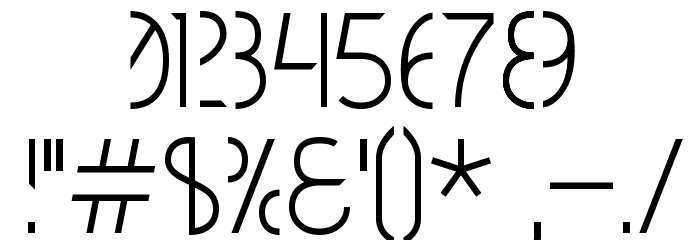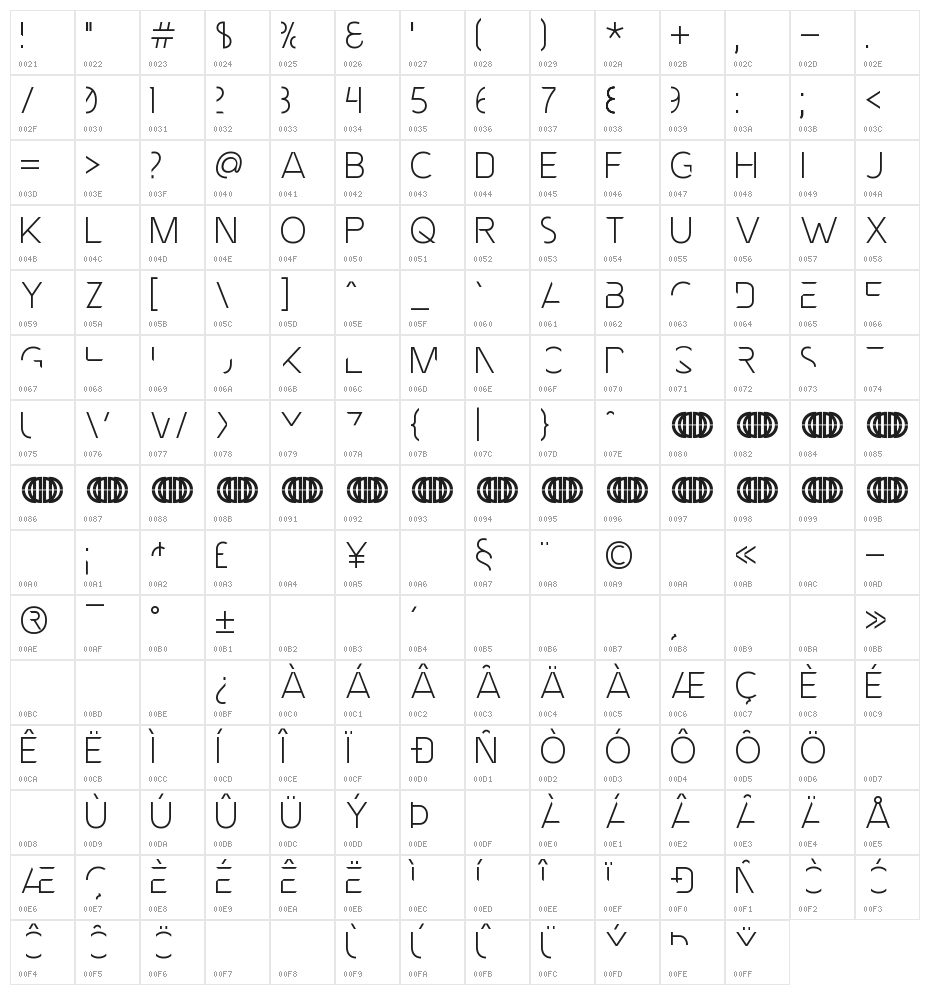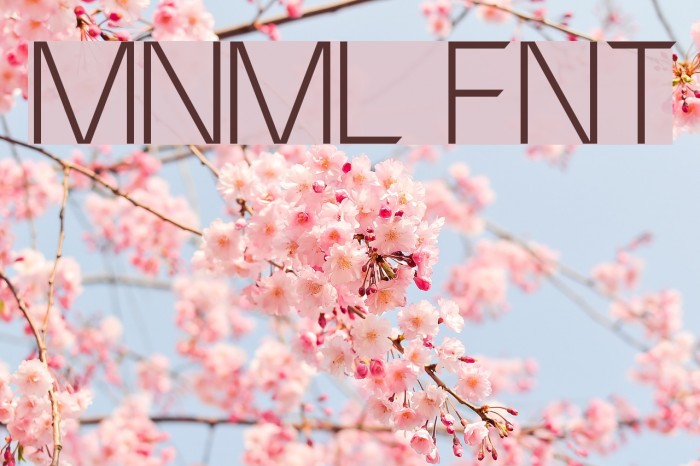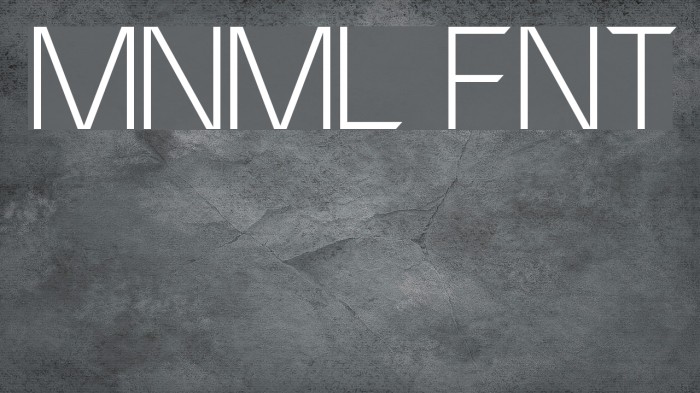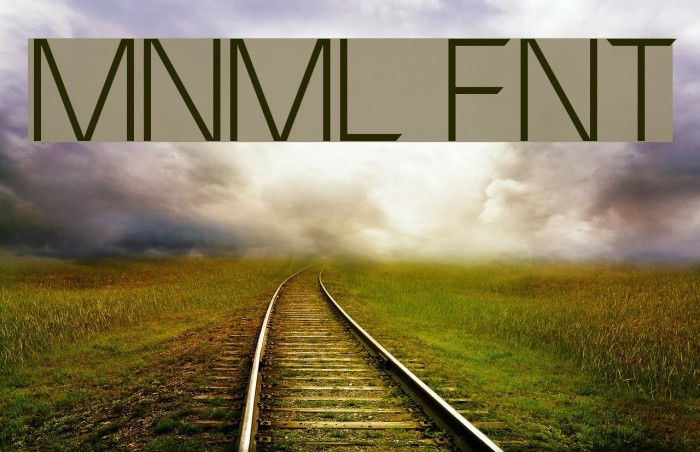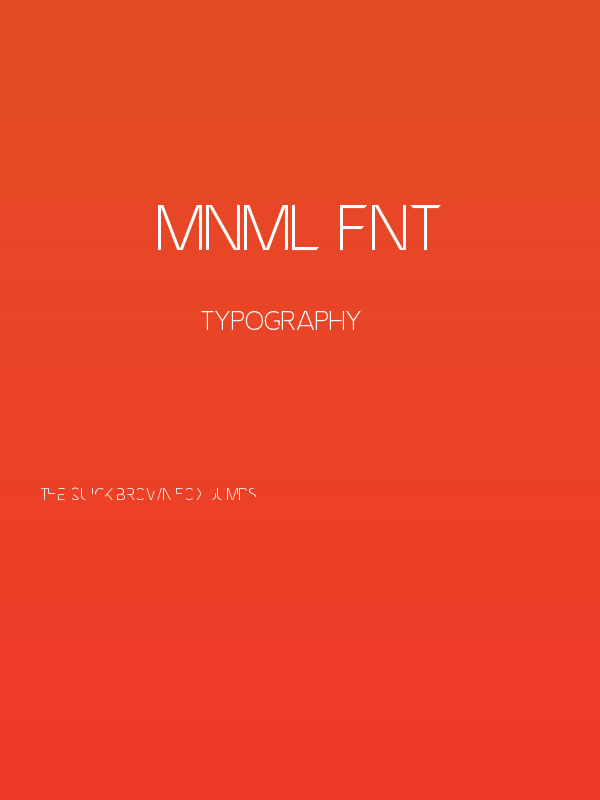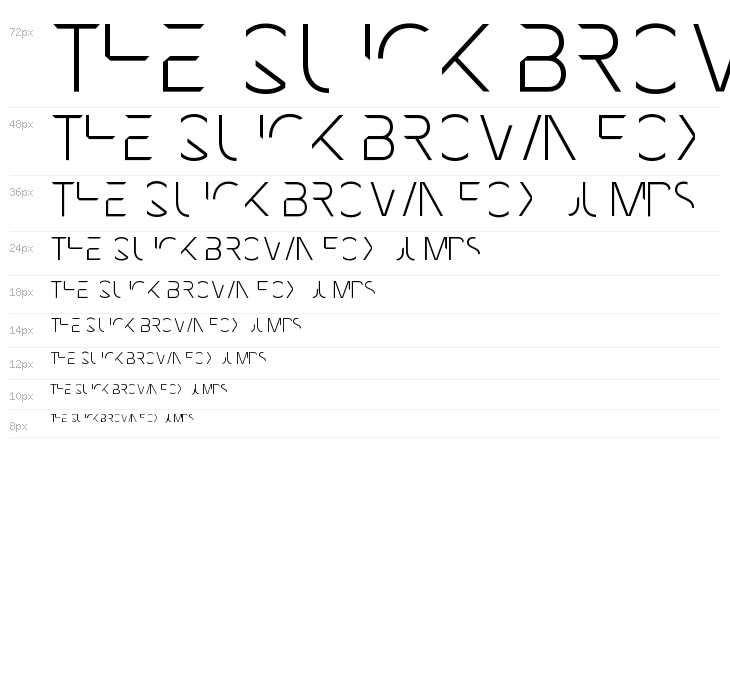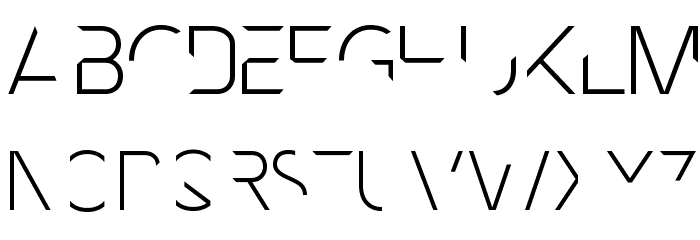
MNML FNT Font
MNML FNT Description
This font embodies a minimalist and futuristic design, characterized by its clean lines and geometric shapes. The uppercase and lowercase letters maintain a consistent height, creating a uniform appearance. The characters are constructed with a focus on simplicity, often using straight lines and sharp angles. This design choice results in a modern and sleek aesthetic that is both eye-catching and easy to read. The numbers and special characters follow the same design principles, ensuring a cohesive look across all elements. The font's minimalistic approach makes it versatile for various applications, particularly in modern and tech-oriented projects.
| Proposed Projects | Ideal for tech branding, modern websites, minimalist posters, and futuristic designs. |